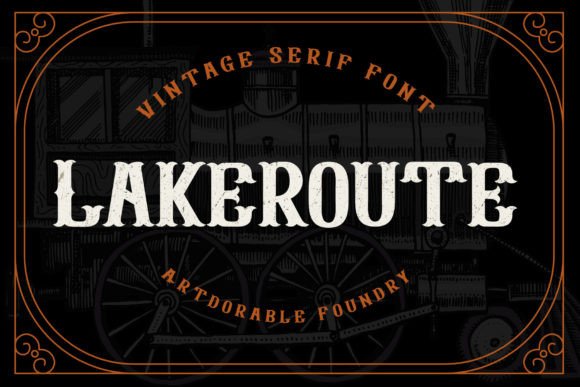
Adorn your designs with the timeless elegance of Lakeroute, a classic display font evoking the charm of yesteryears. Its bold, self-assured strokes dance across your screen, exuding an aura of confidence and dynamism. With its vintage-inspired charm, Lakeroute effortlessly adds a nostalgic touch to your creative endeavors. Whether crafting captivating title credits, designing eye-catching posters, or creating elegant logos, Lakeroute stands as your steadfast companion, guiding you towards design excellence.
Immerse yourself in the world of Lakeroute, where tradition and modernity harmoniously converge. Its meticulously crafted characters, reminiscent of bygone eras, possess an undeniable allure that transcends time. As you weave your words into existence, Lakeroute becomes your artistic muse, transforming ordinary text into captivating narratives. Unleash your imagination and watch as your designs take on a life of their own, imbued with the spirit of nostalgia and the promise of timeless appeal.
With Lakeroute at your fingertips, bid farewell to the mundane and embrace the extraordinary. Its versatility knows no bounds, effortlessly adapting to a myriad of creative projects. From captivating social media graphics that demand attention to stunning website headers that leave a lasting impression, Lakeroute empowers you to leave an indelible mark on your audience. Let your creativity soar as you explore the endless possibilities that await, knowing that Lakeroute will faithfully accompany you on your design odyssey.
Welcome to the world of Lakeroute, where nostalgia and innovation intertwine to create a font that is both timeless and utterly captivating. Its vintage-inspired charm evokes a sense of familiarity, while its confident, dynamic strokes infuse your designs with a refreshing energy. As you embark on your creative journey with Lakeroute as your trusted guide, prepare to witness the transformation of ordinary designs into captivating masterpieces that transcend time and leave an everlasting impact on all who behold them.